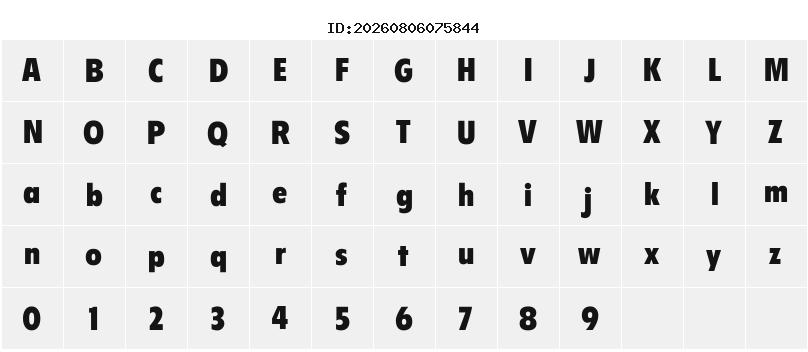
About Ostrava.ttf
Ostrava.ttf is a modern, elegant sans-serif font designed for ultimate readability and visual harmony. Perfect for branding, headlines, web design, and print materials.